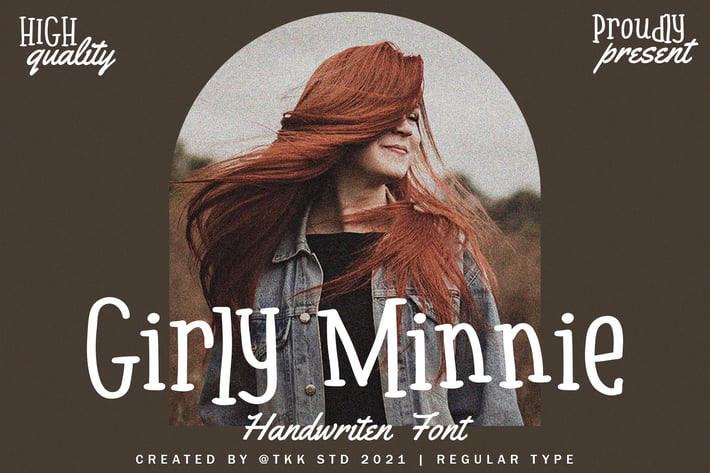
Girly Minnie - Girly Handwritten Font
Girly Minnie Font- Effortlessly Elegant, Endlessly Cute
Girly Minnie is a charming handwritten font that captures the sweet essence of feminine flair with a dash of vintage personality. Each letter feels thoughtfully imperfect, giving off an authentic, cozy vibe perfect for branding, stationery, or storytelling.
Whether you're crafting Instagram quotes, boutique logos, wedding invites, or journals, Girly Minnie brings a soft handwritten touch that feels personal and timeless. Its curves flow like a gentle note passed between friends—pure, simple, and full of feeling.
Ideal For:
Personal blogs & lifestyle brands
Etsy shops & boutique labels
Beauty product packaging
Greeting cards, books & journals
Girly Minnie is more than a font—it’s your brand’s personality in type.
Write it with heart, design it with style.